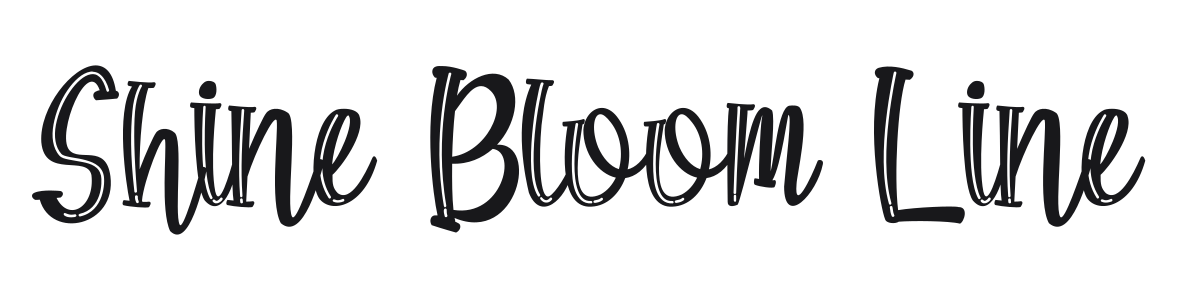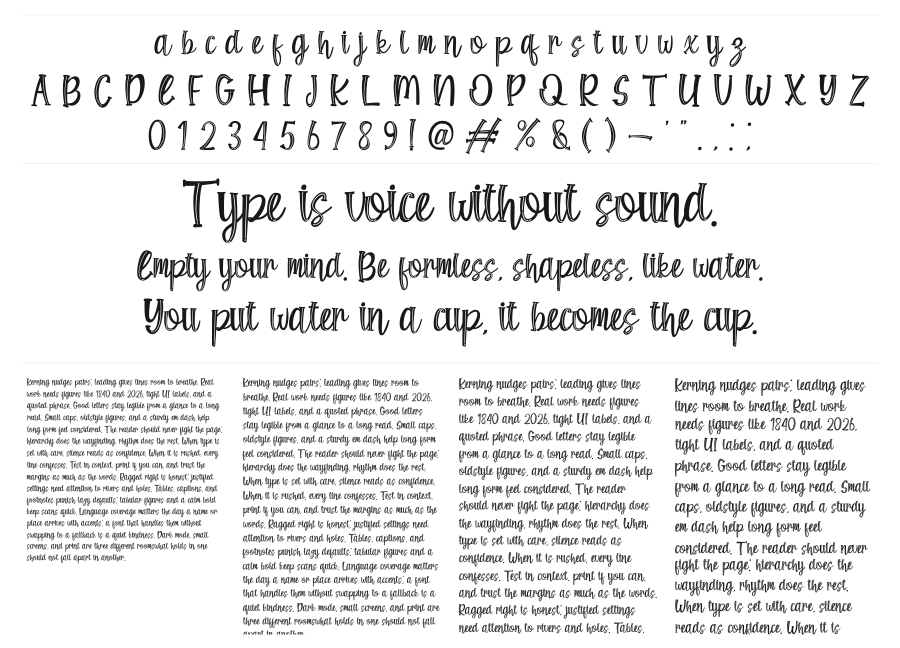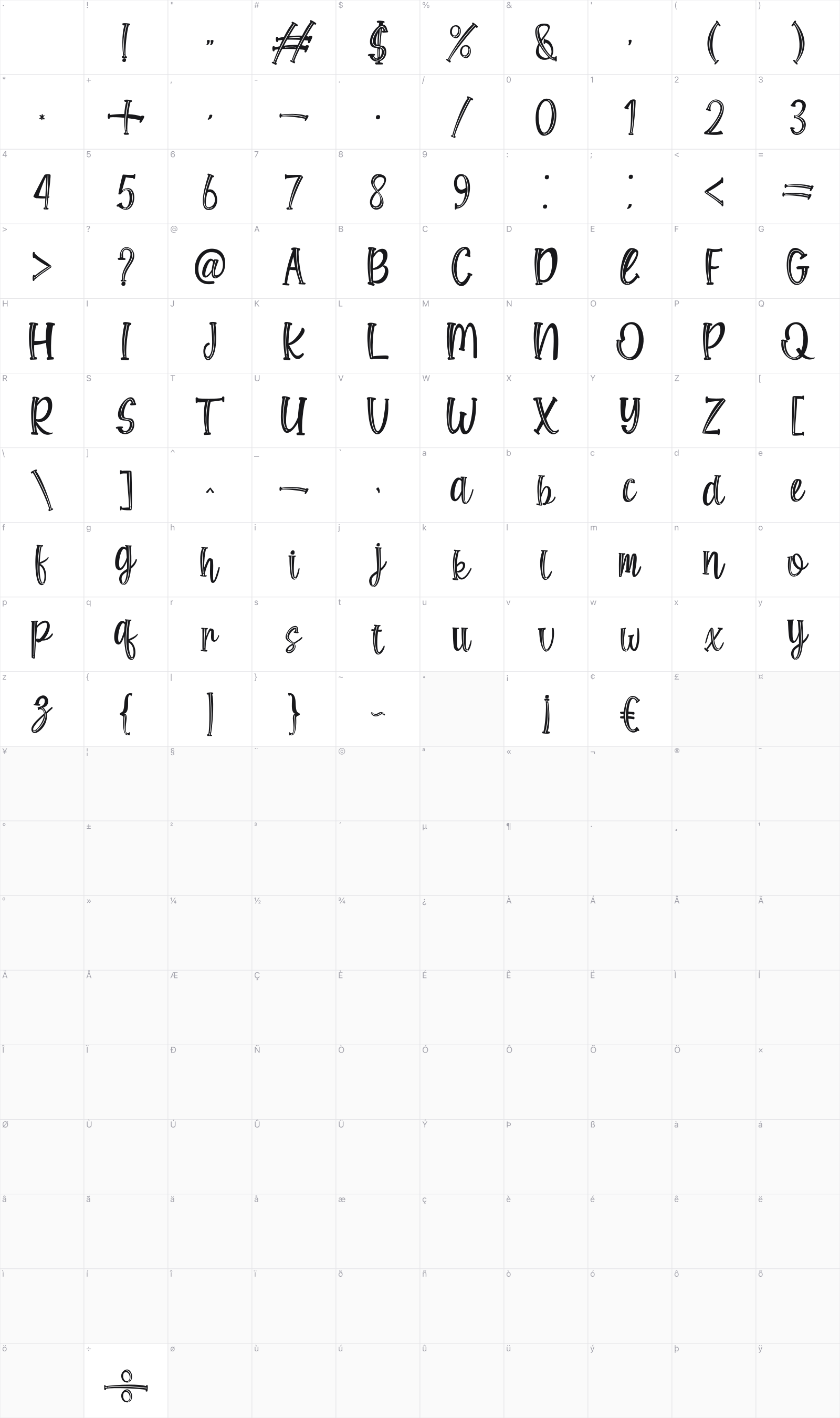
Shine Bloom Line
Shine Bloom Line is a bold casual script with a built-in inline detail that traces a second line through each thick stroke, giving it a crafted, hand-lettered character. The high stroke contrast and lively bouncing baseline make it feel energetic and warm. It suits branding, packaging, and social graphics where a handmade, joyful tone is the point.